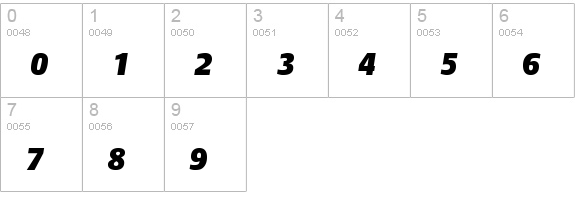
DTLArgoTCaps-BlackItalic Font Details
The DTLArgoTCaps-BlackItalic font is a bold and stylish typeface that exudes sophistication and elegance. Its sleek design and sharp edges make it perfect for adding a touch of modernity to any project. The italic style adds a dynamic and dynamic flair, making your text stand out with a touch of drama. What sets this font apart is not only its striking appearance but also the fact that it is completely free to download. Yes, you read that right - this high-quality font is freely available for download at FontsMarket.com. Whether you're working on a branding project, designing a poster, or creating a sleek website, DTLArgoTCaps-BlackItalic is sure to make a statement. Don't miss out on this fantastic opportunity to elevate your design with this stunning font!